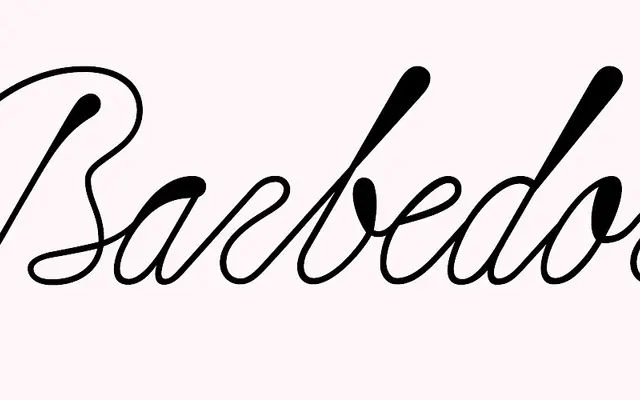
Louise
A display typeface produced within the U+270D type programme at the École Européenne Supérieure d'Art de Bretagne.
Louise is a display typeface developed under the U+270D foundry, the type design programme affiliated with the École Européenne Supérieure d'Art de Bretagne (EESAB). The foundry operates as a student and graduate type initiative, and Louise reflects that experimental, project-based context. Further detail on weights, language support and release year was not available from the page content provided.
Louise appears to be a display typeface with a distinctive decorative character, likely experimental in nature given its context within an art school foundry environment.